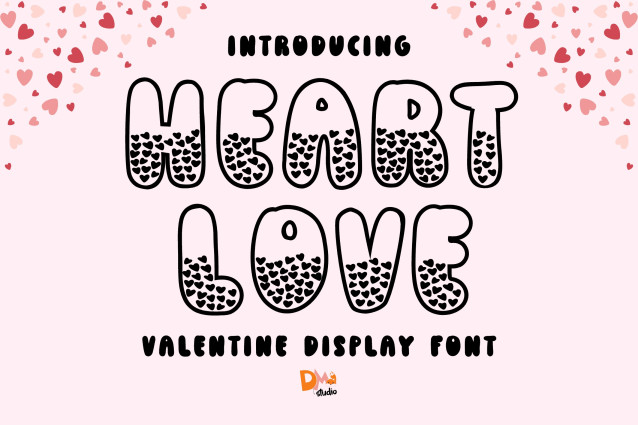
Heart Love Font
Heart Love Font is a charming and romantic typeface designed to capture the essence of love and affection. Perfect for Valentine’s Day projects, wedding invitations, romantic cards, and love-themed designs, this font features playful heart-inspired details and a stylish display look. With its whimsical and romantic aesthetic, Heart Love adds a touch of warmth and passion to every project.